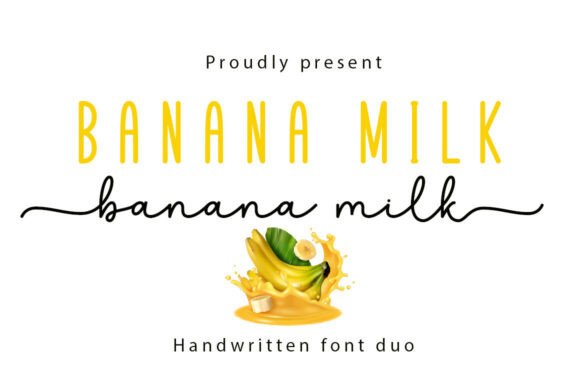
Discover the Charismatic Charm of Banana Milk Duo and Stickyrace Duo Fonts
In the realm of typography, few fonts manage to capture the essence of both elegance and versatility. However, the Banana Milk Duo and Stickyrace Duo fonts stand out as exceptional examples that effortlessly bridge the gap between aesthetic appeal and functional design. These typefaces have gained popularity for their unique charm and adaptability, making them suitable for a wide range of applications, from poignant greeting cards to bold headlines.
Banana Milk Duo Font: A Versatile Typographic Marvel
Banana Milk Duo is more than just a font; it’s a design statement. Its charismatic charm lies in its ability to adapt seamlessly to various design needs. Whether you’re crafting a heartfelt greeting card or creating a show-stopping headline, this font brings a touch of elegance and sophistication. The beauty of Banana Milk Duo lies in its versatility, making it a favorite among designers who seek a typeface that can elevate their work across different platforms.
Application in Greeting Cards
For greeting cards, the tone and feel of the font are crucial. Banana Milk Duo offers a gentle, soothing quality that makes it perfect for occasions that require a touch of warmth and sincerity. Its elegant strokes and balanced design ensure that the message conveyed is as impactful as it is visually appealing. Whether it’s a birthday, anniversary, or a simple ‘thank you’ note, Banana Milk Duo adds a layer of emotional depth to the card, making it memorable.
Application in Headlines
On the other end of the spectrum, when used in headlines, Banana Milk Duo transforms into a bold and attention-grabbing typeface. Its unique design ensures that it stands out, making it ideal for titles, headings, and any text that needs to make a significant visual impact. The font’s ability to command attention without overshadowing the content is a testament to its versatility and the skillful design that has gone into creating it.
Stickyrace Duo Font: A World of Magnificent Typography
Complementing the elegance of Banana Milk Duo is the captivating world of Stickyrace Duo. This typeface is designed to encapsulate the essence of magnificent typography, offering a visual enchantment that is hard to resist. Stickyrace Duo brings with it a unique appeal that adds a touch of sophistication and elegance to every design aesthetic it is a part of. Its design ensures that it can be used across diverse applications, from digital media to print, without losing its charm.
Application in Digital Media
In the digital realm, Stickyrace Duo shines with its ability to capture attention and retain it. For websites, social media posts, and digital advertising, this font offers a fresh and modern look that is both engaging and memorable. Its clean lines and artistic flair make it a popular choice among digital designers looking to create a lasting impression on their audience.
Application in Print Media
For print media, Stickyrace Duo offers a tangible quality that translates well on paper. Whether it’s in brochures, posters, or business cards, this font adds a level of professionalism and elegance that is hard to achieve with more conventional typefaces. Its versatility ensures that it can be used in a variety of contexts, from formal to informal, without ever appearing out of place.
The Impact of Unique Typography on Design Aesthetics
The introduction of Banana Milk Duo and Stickyrace Duo into the world of typography has had a significant impact on design aesthetics. These fonts have challenged traditional notions of what a typeface can do, pushing the boundaries of creativity and functionality. By offering a fresh alternative to more traditional fonts, they have empowered designers to experiment with new styles and approaches, leading to a more vibrant and diverse design landscape.
A Designer’s Perspective
From a designer’s perspective, the availability of versatile and aesthetically pleasing fonts like Banana Milk Duo and Stickyrace Duo is a game-changer. These typefaces allow for greater creative freedom, enabling designers to bring their vision to life with precision and elegance. The ability to seamlessly integrate these fonts into various design projects, from branding to advertising, has streamlined the design process, making it more efficient and enjoyable.
The Future of Typography: Trends and Predictions
As we look to the future of typography, it’s clear that fonts like Banana Milk Duo and Stickyrace Duo are at the forefront of a new wave of design innovation. The trend towards more personalized and visually engaging typography is expected to continue, with designers increasingly seeking out unique and versatile typefaces that can help their work stand out in a crowded digital landscape.
The Evolution of Typography
The evolution of typography is an ongoing process, influenced by technological advancements, cultural shifts, and artistic innovation. As technology continues to advance, offering new platforms and mediums for design, the role of typography will only become more critical. Fonts like Banana Milk Duo and Stickyrace Duo are not just a reflection of current design trends but also a glimpse into the future of typography, where versatility, elegance, and creativity are paramount.
In conclusion, Banana Milk Duo and Stickyrace Duo represent a significant leap forward in the world of typography. These fonts, with their charismatic charm and versatile design, have set a new standard for what a typeface can achieve. Whether it’s adding a touch of elegance to a greeting card or making a bold statement in a headline, these fonts have proven themselves to be invaluable tools in the designer’s arsenal. As we move forward into the future of design, it’s clear that the impact of Banana Milk Duo and Stickyrace Duo will be felt for years to come, inspiring a new generation of designers to explore the limitless possibilities of typography.